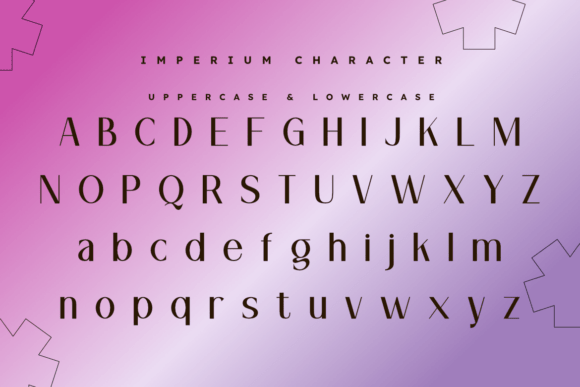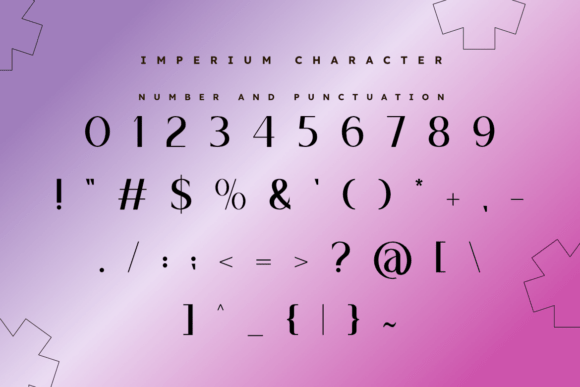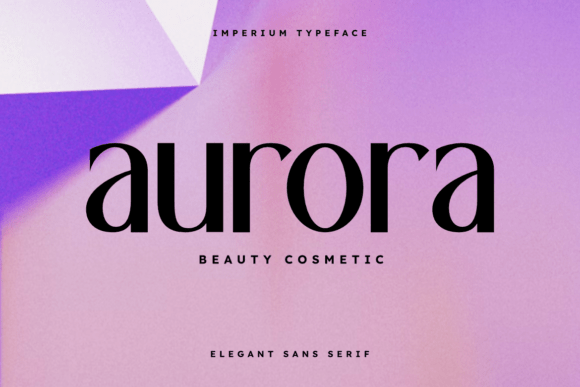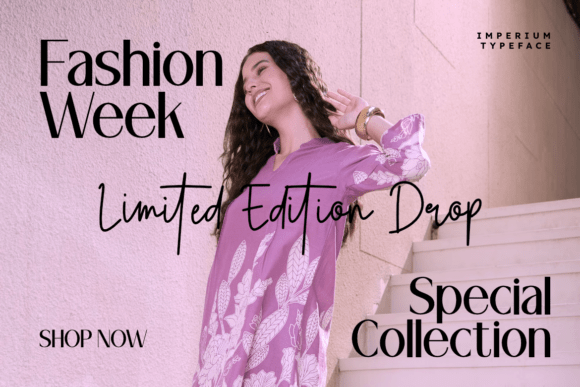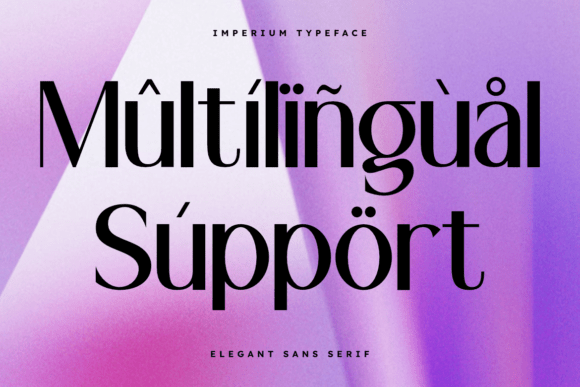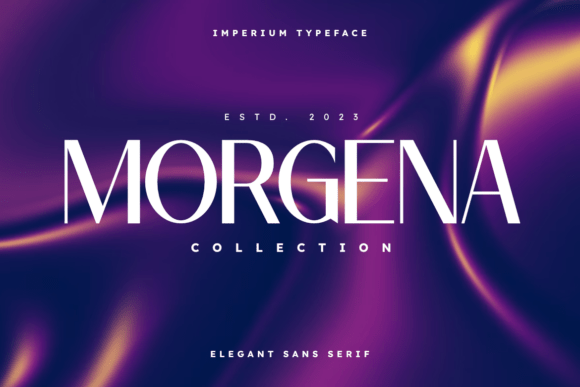
Discovering the Perfect Design Element: Imperium Font
As designers, we’ve all been there – staring at a blank canvas, struggling to find the perfect font to bring our creative project to life. The right typeface can elevate our work from bland to grand, and for those who appreciate the beauty of simplicity, Imperium Font is the ultimate game-changer. With its sleek, modern aesthetic and clean lines, this typeface is a design resource that exudes sophistication and refinement.
| 👤 Author | Hyperactype |
Whether you’re working on a high-profile branding project or a personal creative endeavor, Imperium Font offers the structural integrity needed to make a lasting impression. Its versatility and high-quality design make it an ideal choice for editorial layouts, from fashion spreads to architectural journals. And the best part? You can download it for free, giving you the freedom to experiment with this design powerhouse without breaking the bank.
Key Features of Imperium Font
- High-quality design resource with a unique, futuristic aesthetic, ideal for creative projects.
Honest Review: Imperium Font
As a designer, I’m always on the lookout for high-quality design resources to elevate my creative projects. The Imperium Font is one of the most versatile and stylish fonts I’ve come across. It’s free to download, making it an excellent addition to any design arsenal.
- ✨ High-quality design: The font is expertly crafted, with a focus on clean lines and a sophisticated aesthetic.
While the Imperium Font is an excellent design resource, there are a few limitations to keep in mind:
- ⚠️ Limited font sizes: The font may not be as readable at very small sizes, which could be a concern for certain design projects.
- ⚠️ Limited language support: The font may not support all languages or character sets, which could be a limitation for designers working on international projects.
Overall, I’m impressed with the Imperium Font. It’s a great addition to any designer’s toolkit, and its high-quality design and transparent background make it an excellent choice for a wide range of creative projects.
Common Use Cases for Imperium Font
The Imperium Font is ideal for a variety of creative projects, including logos, brochures, business cards, and social media graphics. Its unique design and transparent background make it perfect for overlaying text on images or using as a standalone element.